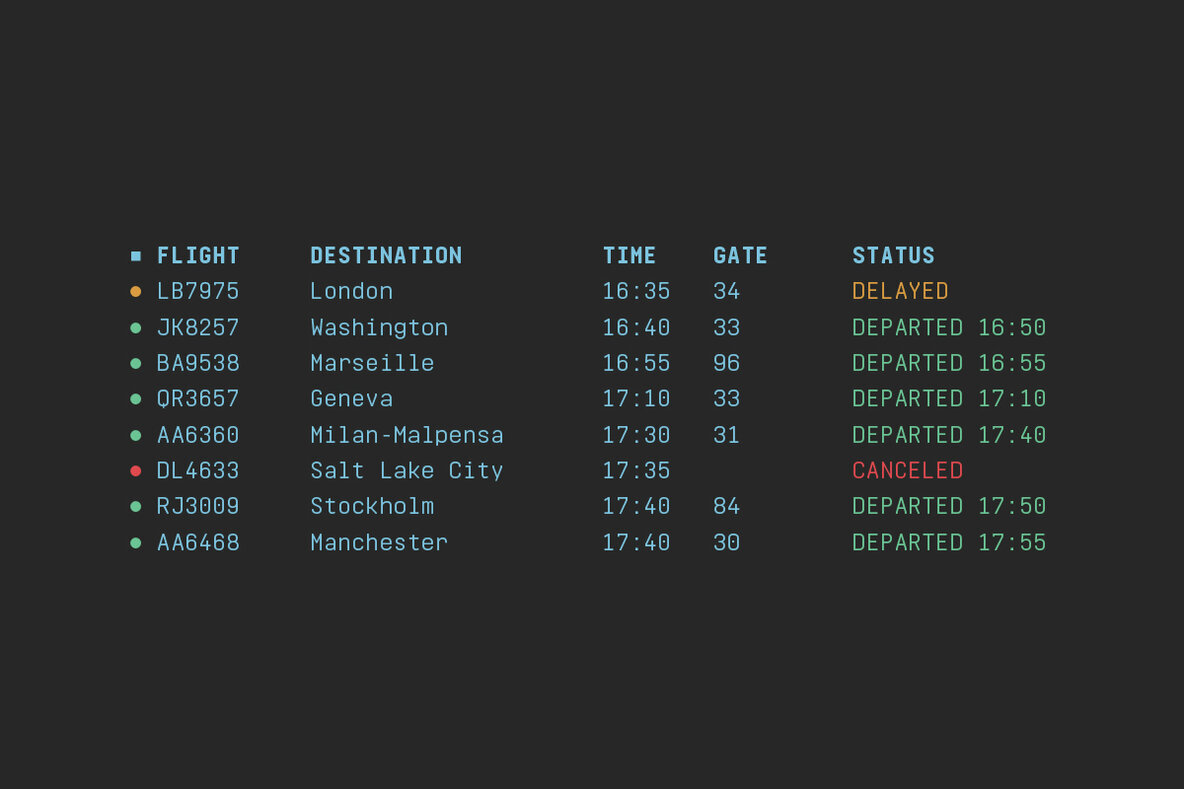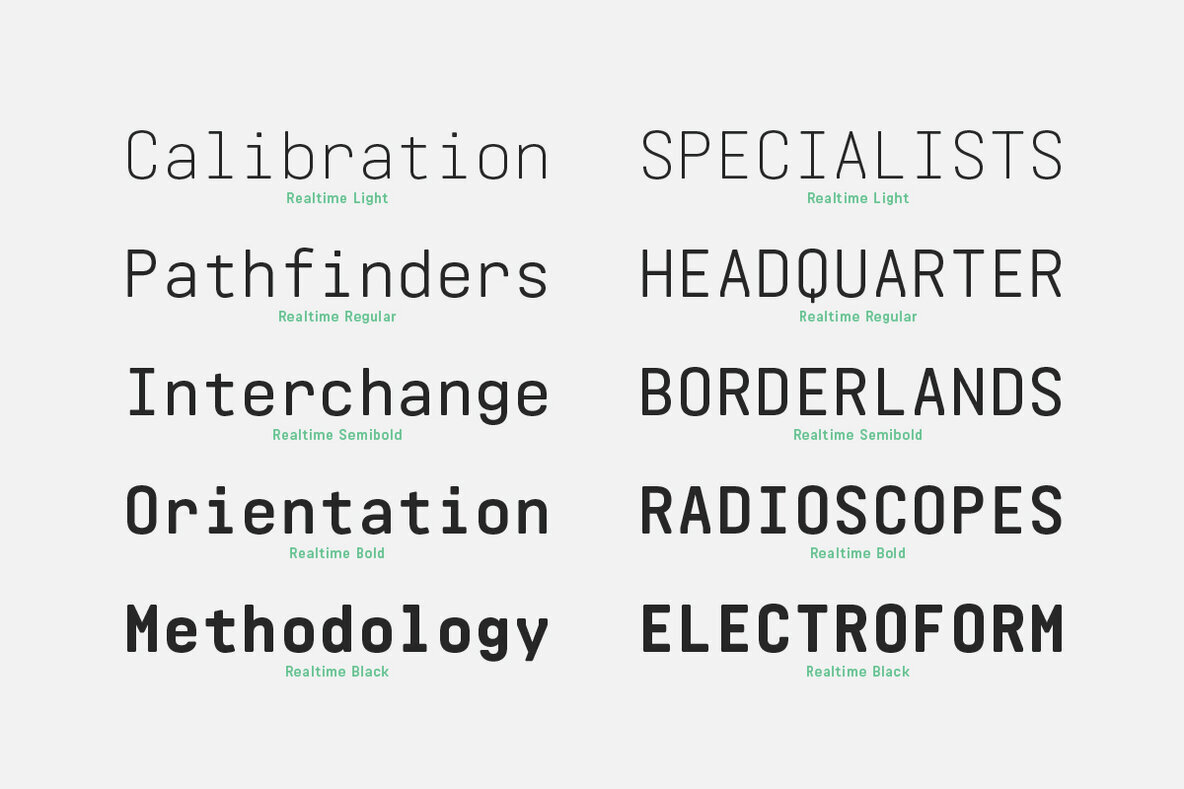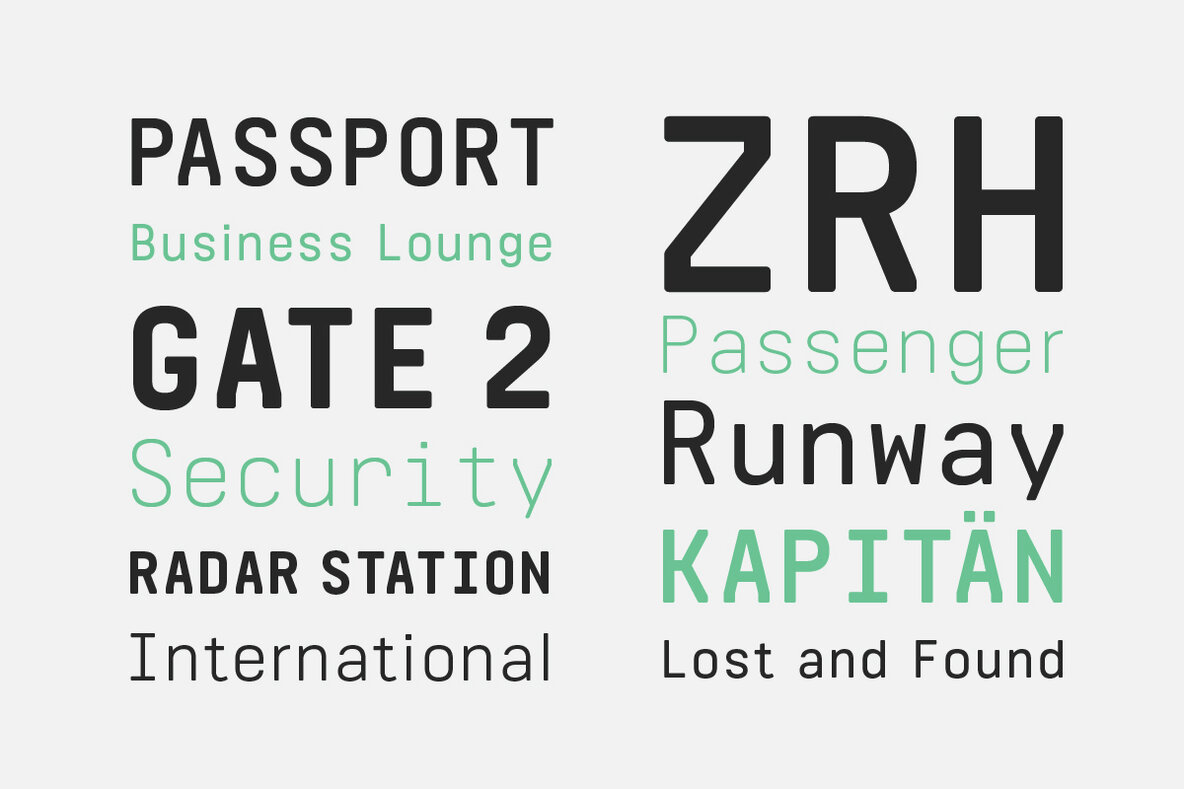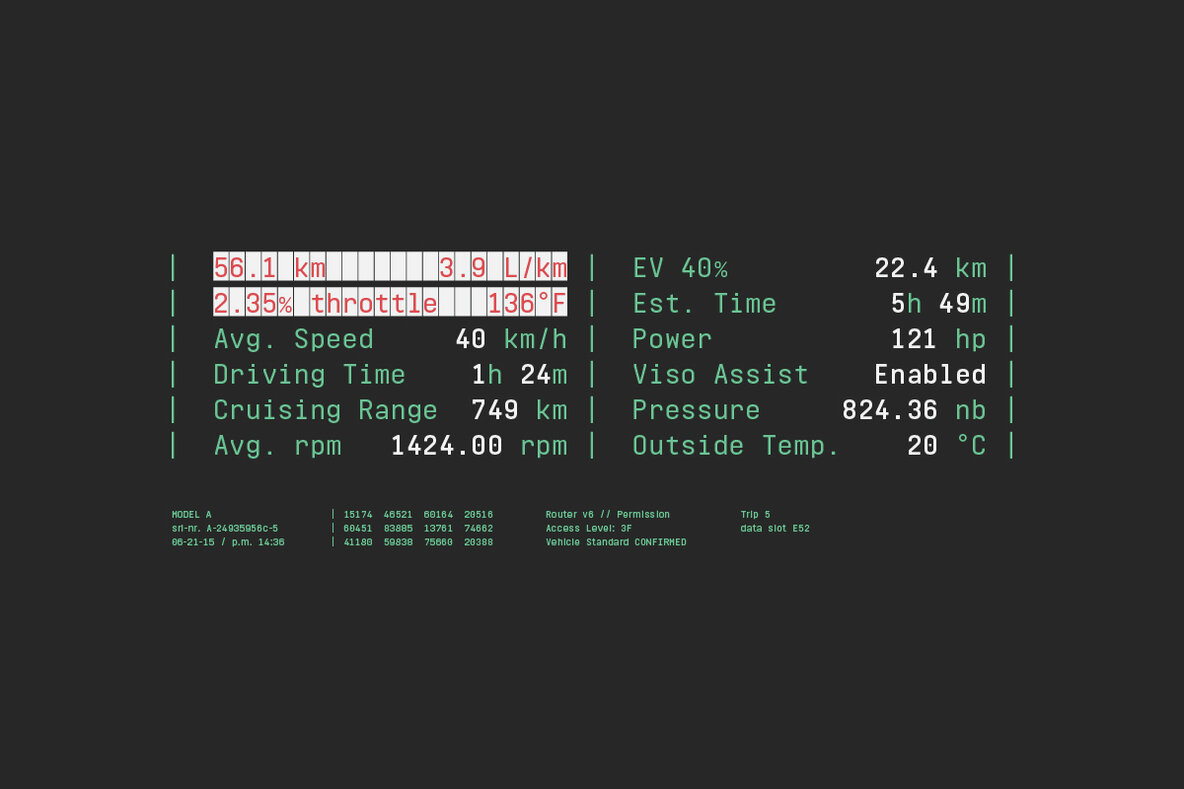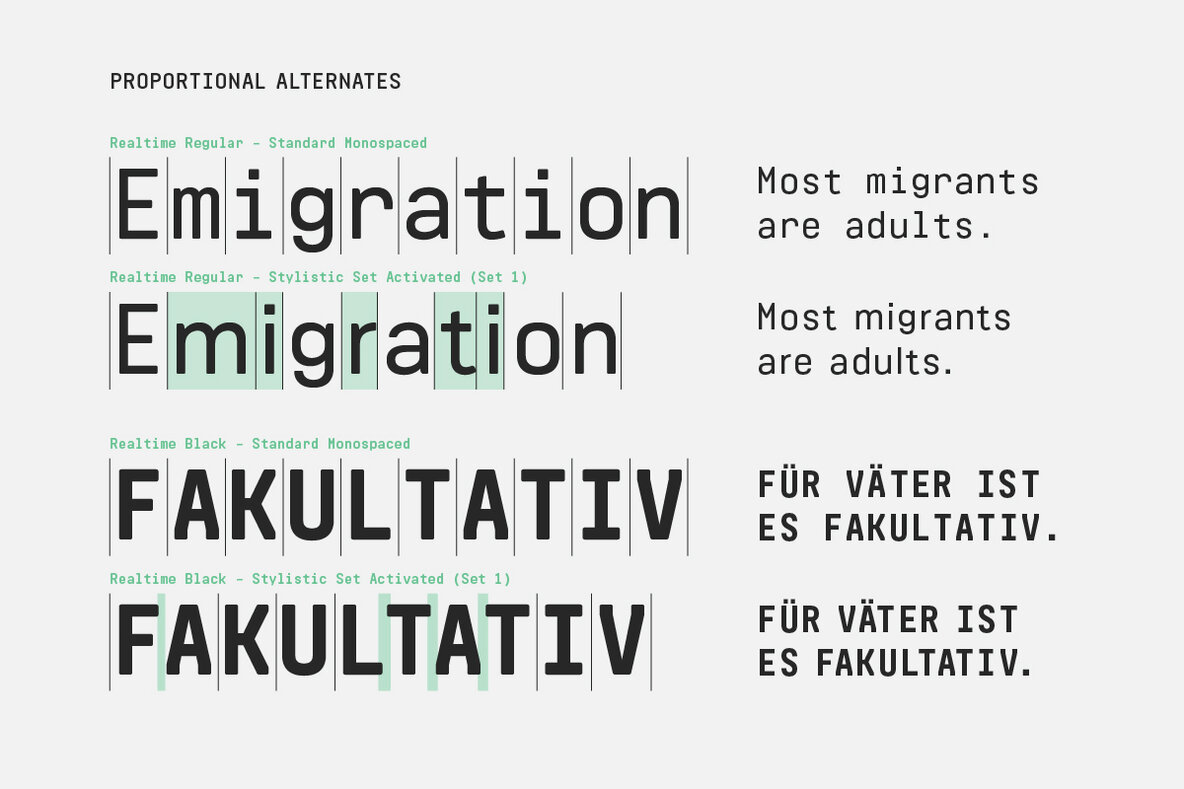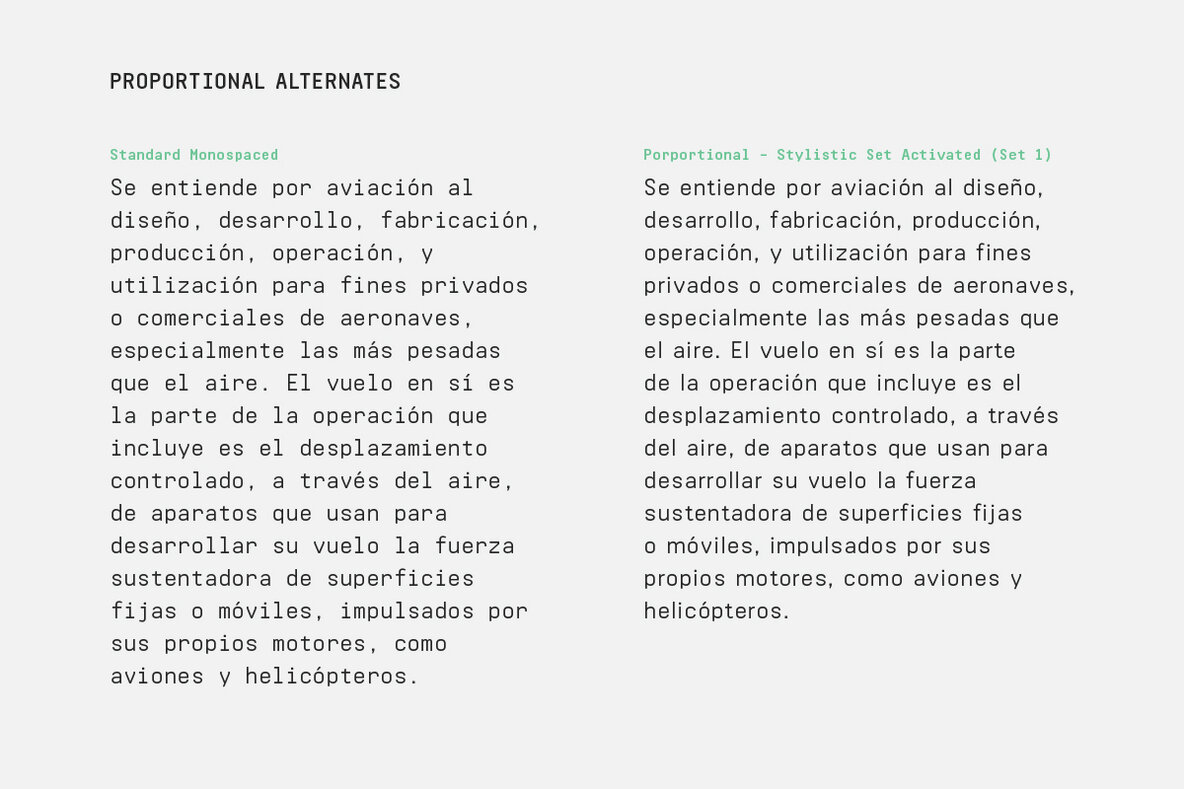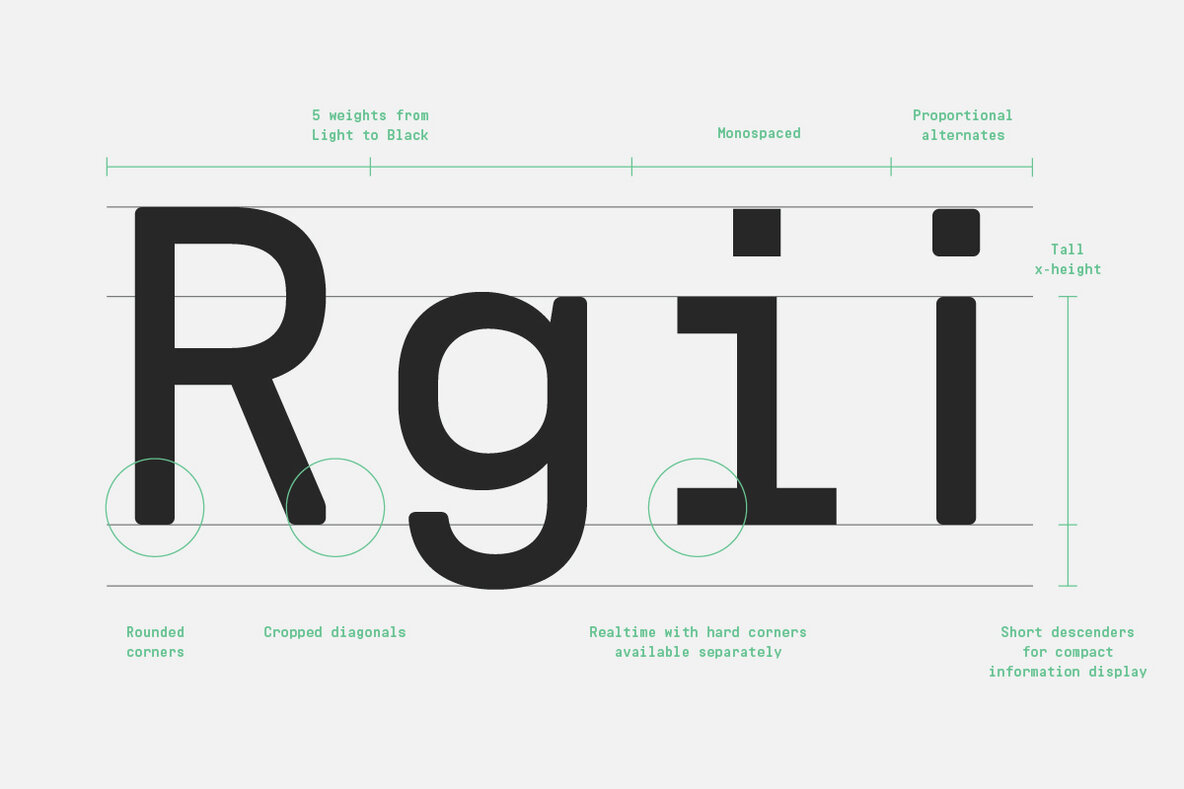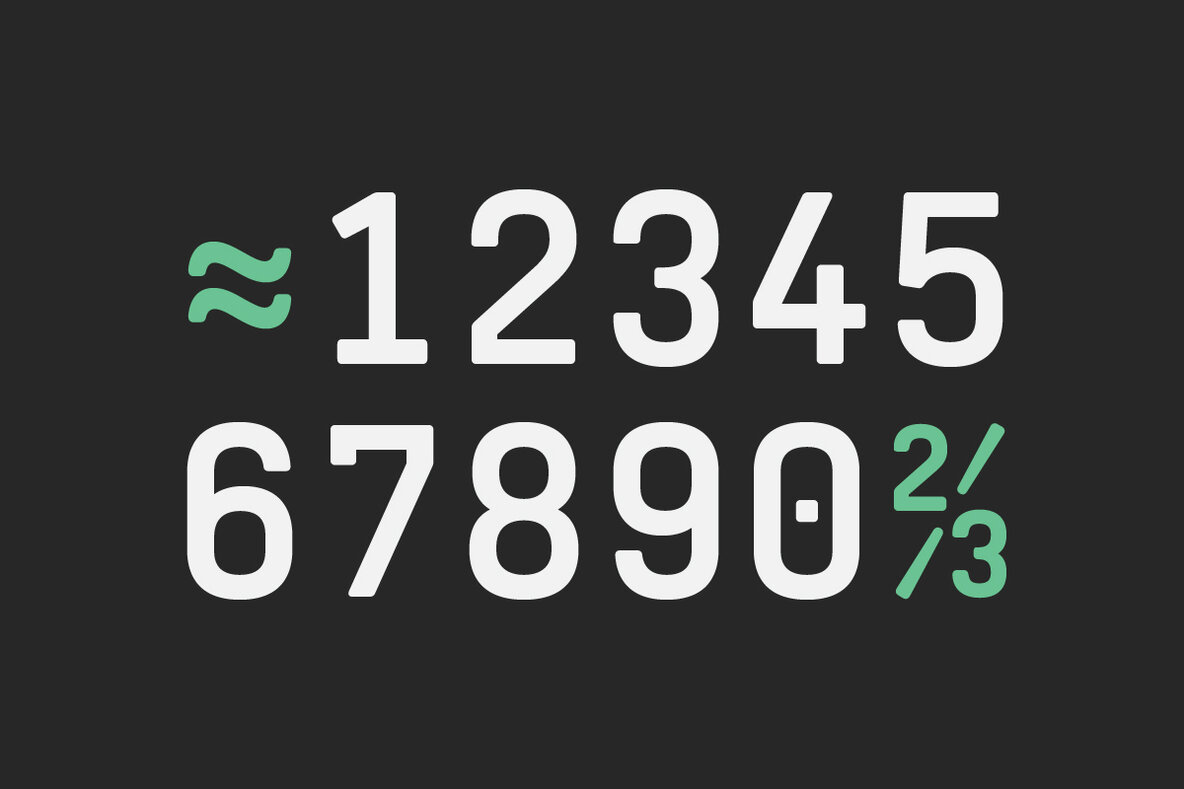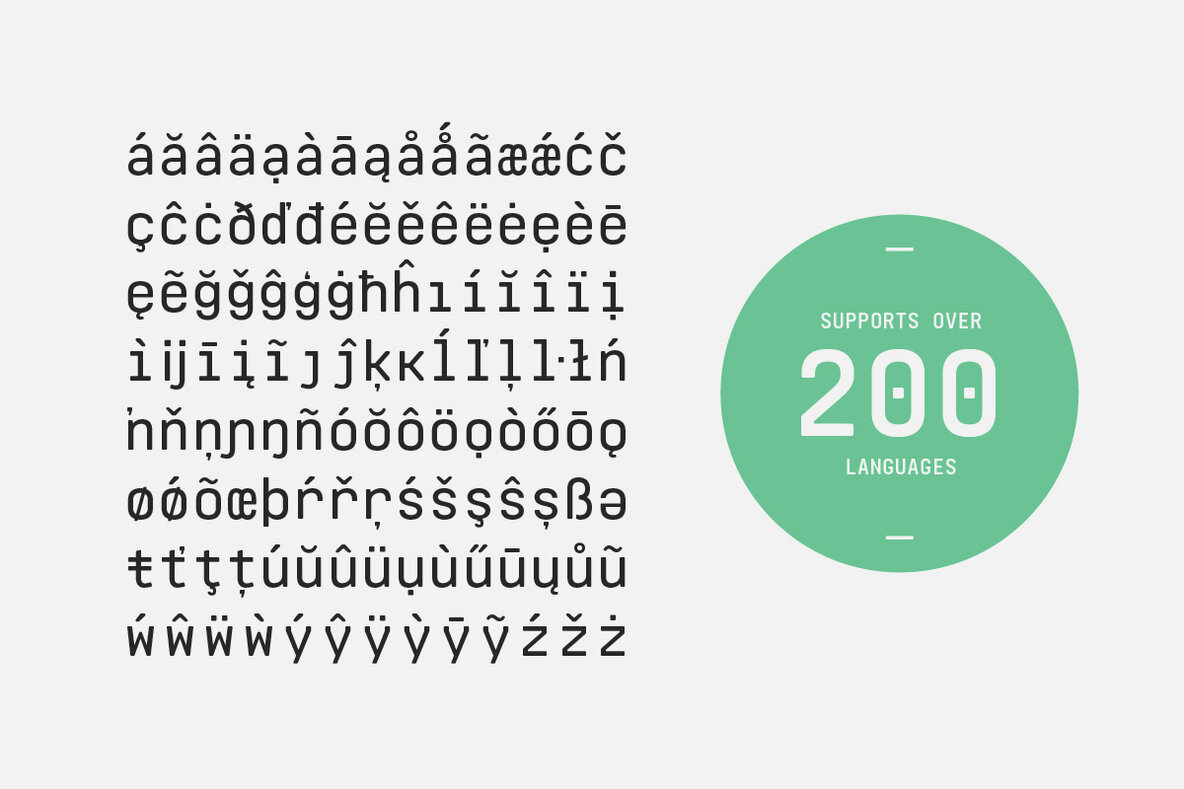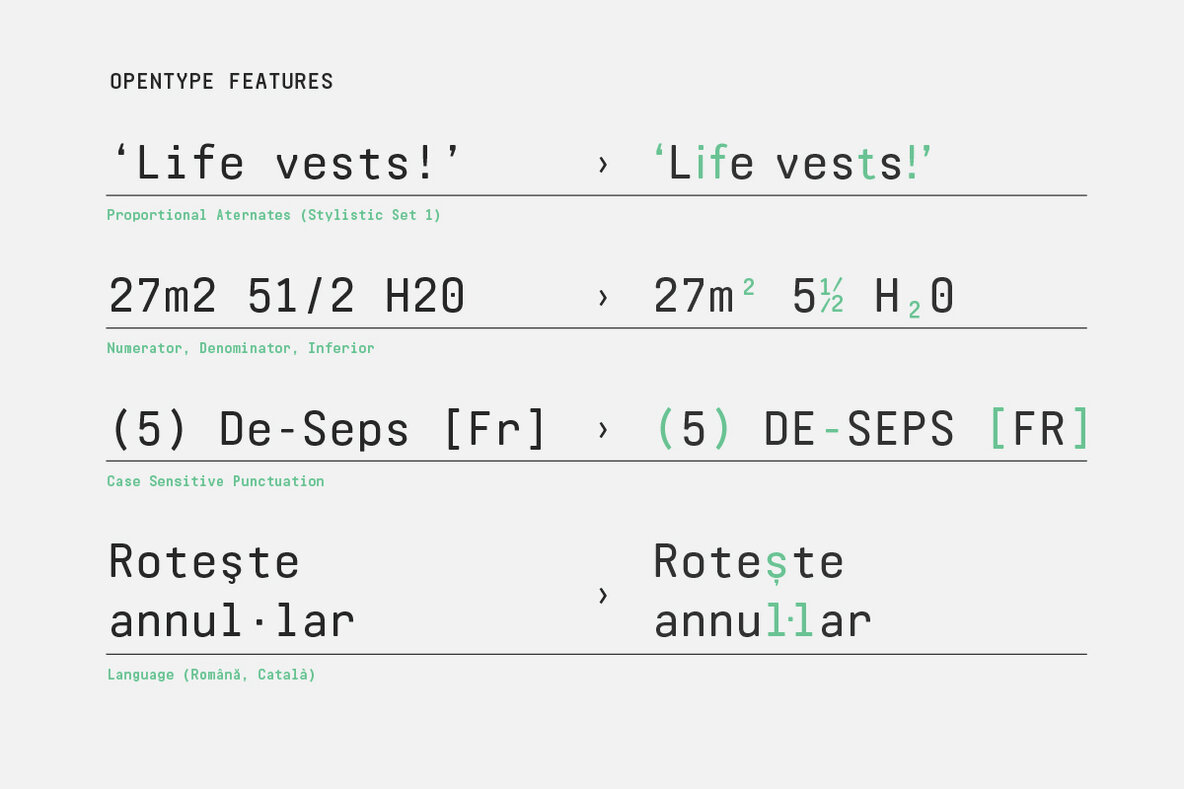
Realtime Rounded Font
Information displays have an aesthetic of their own. Functional design where transmission of information is key — and best in real time. The Realtime Rounded typeface is not meant to recreate the appearance of those applications, instead it takes inspiration from them. The result is a technical yet friendly design with details that serve function and visual impact alike. Its soft edges apply warmth to the otherwise rather technical appearance.
As a monospaced typeface it lends itself to tabular designs, sturdy columns and tidy layouts. Nevertheless Realtime comes with a feature for setting continuous text — a proportional design employable through OpenType — it further comes in five weights, from light to black, and with a character set that covers over 200 latin languages.
Realtime Rounded is the soft companion to the standard Realtime Typeface which is available separately.